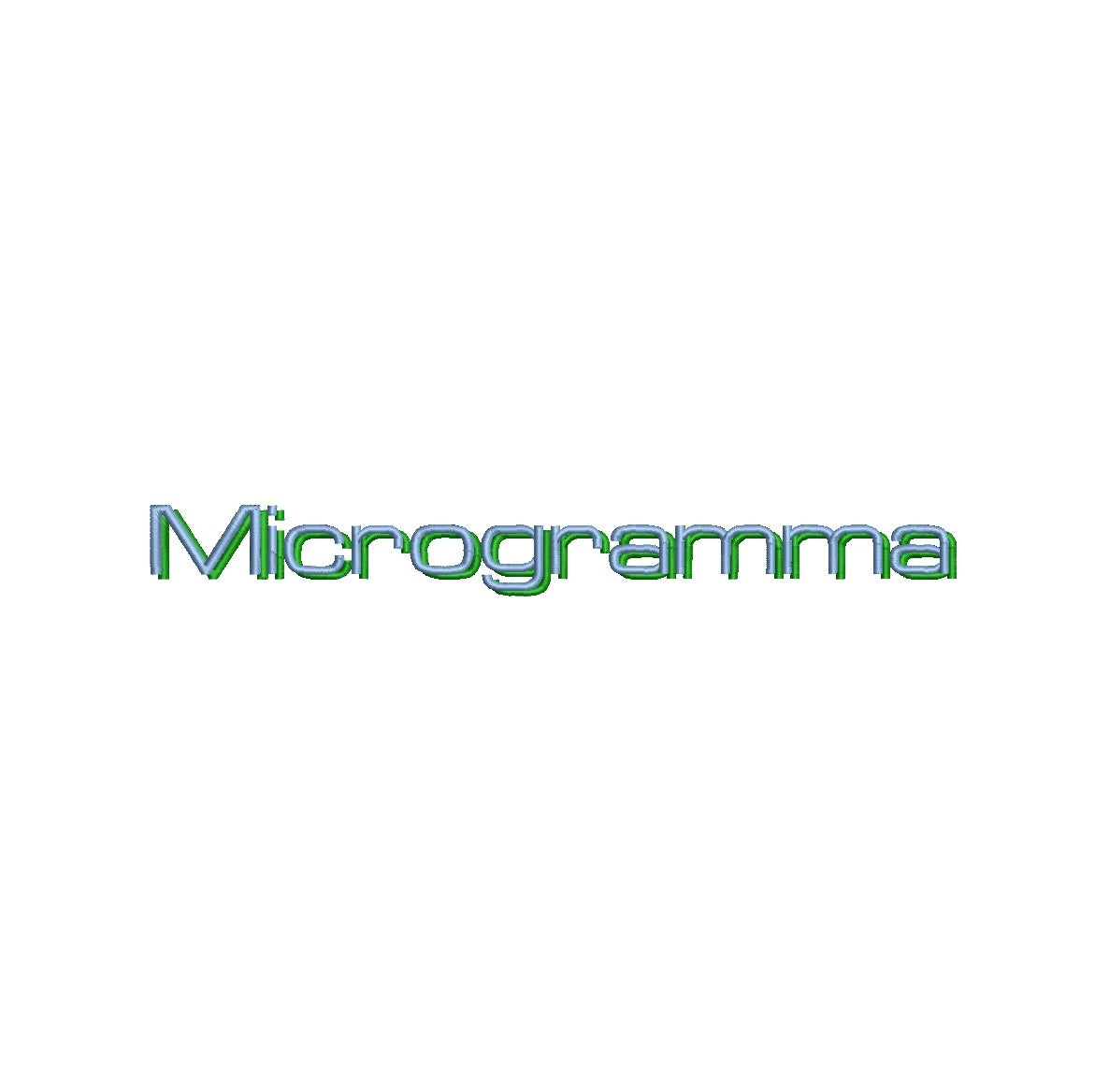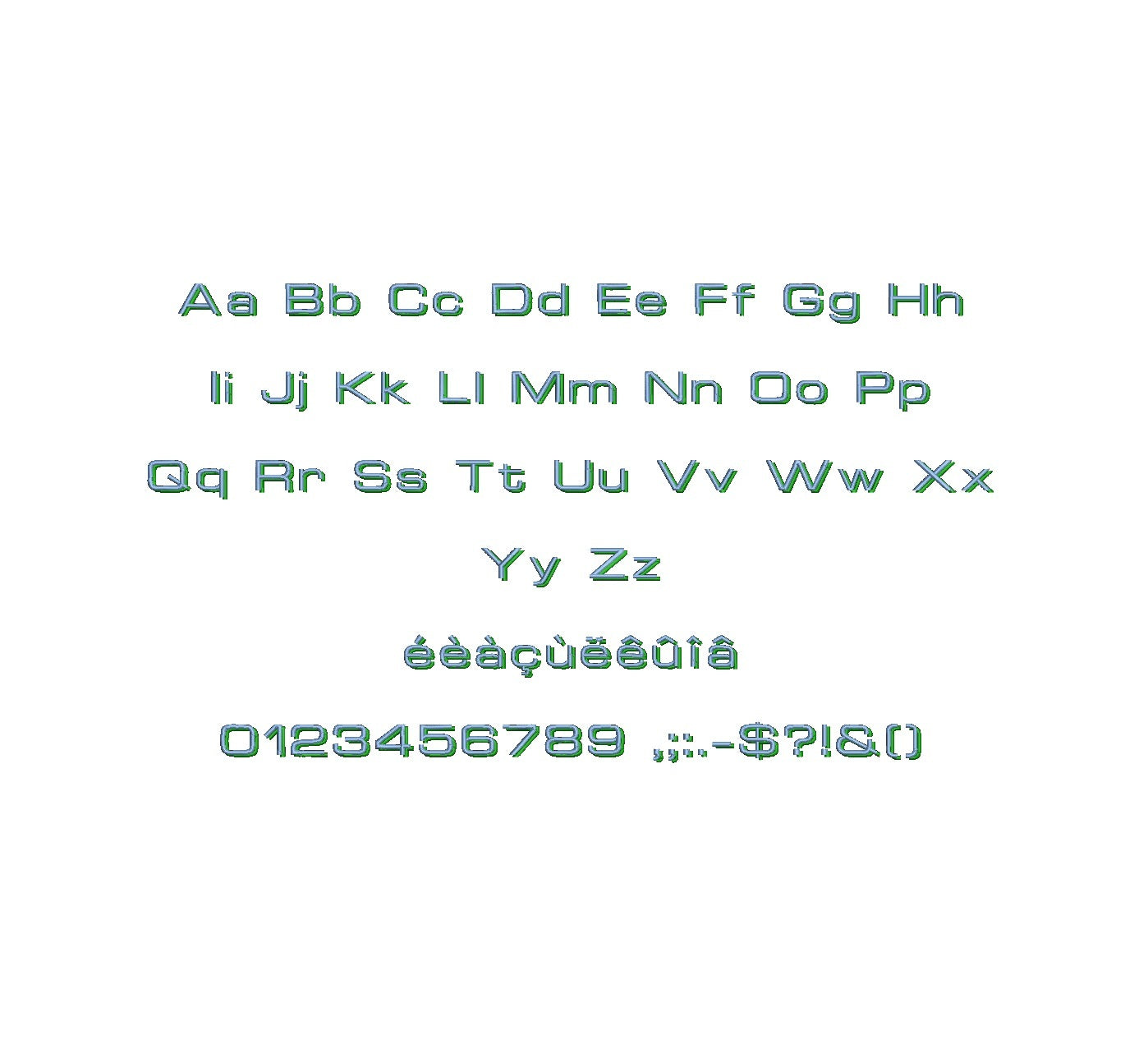
Enhance your designs with the sleek Microgramma Shadow ESA font. Fully compatible with Wilcom Studio e4.5.6 and Hatch 3 versions and up, this font adds a touch of modern minimalism and bold impact to your projects. The font's precise shadows and geometric lines create a striking visual presence that sets your designs apart. Streamline your creative process and achieve flawless results by utilizing this font with industry-leading software. Elevate your projects with the compatibility of Microgramma Shadow ESA font and craft visuals that exude contemporary sophistication. Embrace creativity and precision for your design journey today!